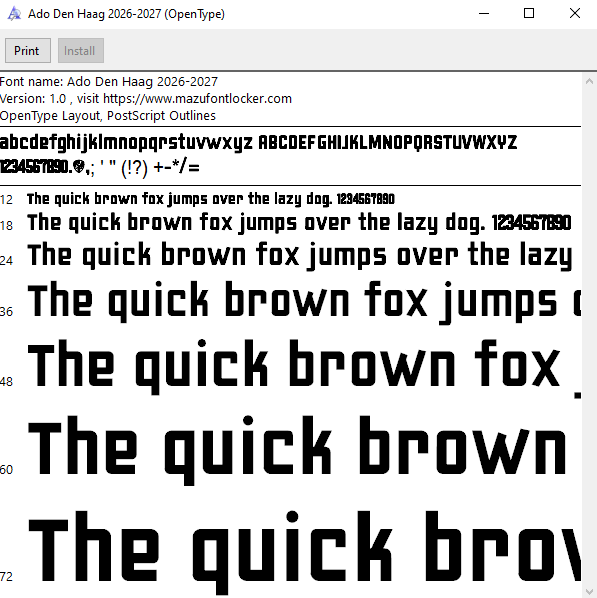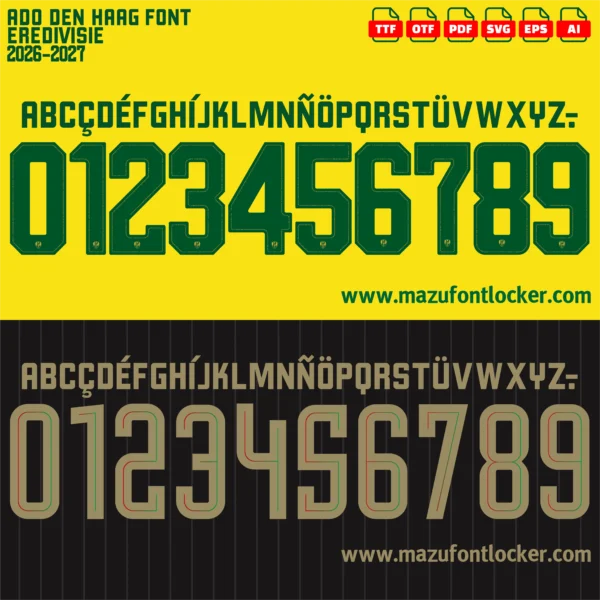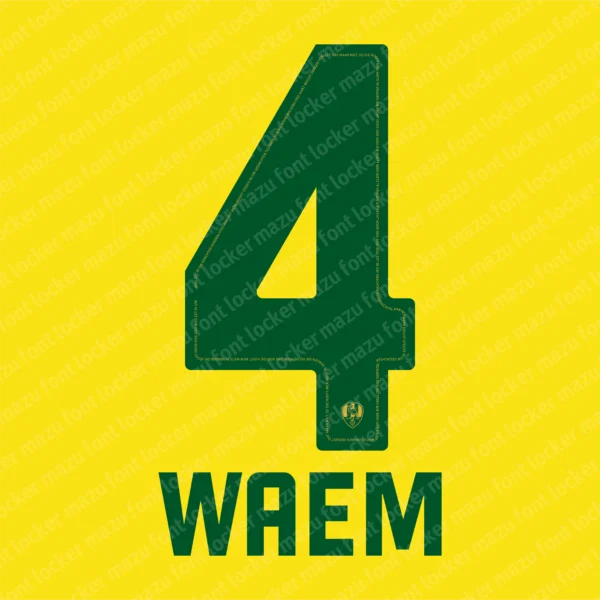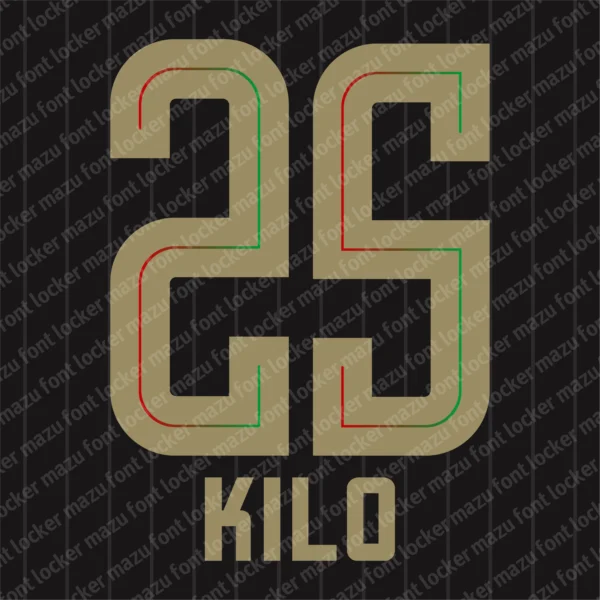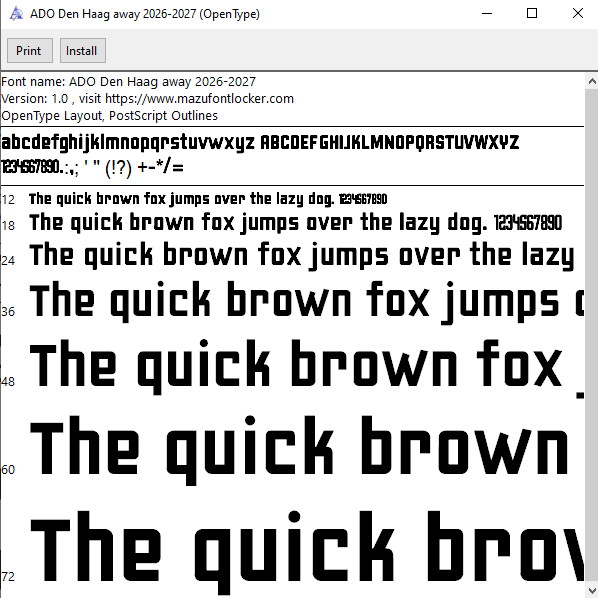
ADO Den Haag 2026-2027 Font Vector – Stunning Ooievaars Masterpiece
This font captures the unstoppable, precision-forged lettering inspired by Ado Den Haag’s iconic yellow-and-green identity, proud The Hague heritage, legendary De Hagenezen tradition, and fearless machine-like football spirit — delivering premium authenticity and explosive match-day energy for professional jersey mockups, football graphics, sports branding, fan designs, and high-end creative projects.
ADO Den Haag 2026-2027 Font Vector – Stunning Yellow & Green Typeface
The ADO Den Haag 2026-2027 Font Vector is a premium typeface that accurately recreates the distinctive match lettering associated with ADO Den Haag during the 2026-2027 football season. This high-quality vector font kit captures the bold, clean, and instantly recognizable typography that perfectly complements the club’s iconic yellow and green identity.
Designed for professional designers, football enthusiasts, jersey collectors, and passionate ADO Den Haag supporters, the ADO Den Haag 2026-2027 Font Vector delivers exceptional authenticity for creating realistic jersey mockups, football merchandise, social media graphics, match posters, squad designs, and custom fan artwork. Every character has been carefully recreated to reflect the powerful and precise visual style of one of the Netherlands’ most traditional and passionate football clubs.
Why Choose ADO Den Haag 2026-2027 Font Vector
This font stands out thanks to its precise vector construction and authentic club-inspired styling. Every letter and numeral has been meticulously recreated to match the distinctive football lettering aesthetic associated with ADO Den Haag during the 2026-2027 season and its domestic and European campaigns.
Whether you’re producing professional football kit templates, custom jersey concepts, or eye-catching football content, the ADO Den Haag 2026-2027 Font Vector delivers a genuine match-ready appearance inspired by the identity of the Residentieclub.
The lettering featured in the ADO Den Haag 2026-2027 Font Vector combines clean geometric lines with bold modern proportions. The result is a premium and highly readable typeface that reflects ADO Den Haag’s proud football heritage, iconic yellow and green colors, The Hague identity, and passionate global fanbase.
• Complete uppercase A–Z alphabet and numbers 0–9 in authentic ADO Den Haag 2026-2027 inspired style
• Special ADO Den Haag badge glyph – Press the “:” (Colon) key to insert the club badge
The ADO Den Haag 2026-2027 Font Vector is an independently designed typeface package inspired by the official shirt lettering and visual identity associated with ADO Den Haag during the 2026-2027 football season. It has been carefully recreated for football enthusiasts, graphic designers, collectors, jersey creators, and fans producing custom football concepts, digital artwork, and fan-made projects. Please note that this is a fan-made design resource and is not an official product of ADO Den Haag, the Eredivisie, UEFA, or any associated organization.